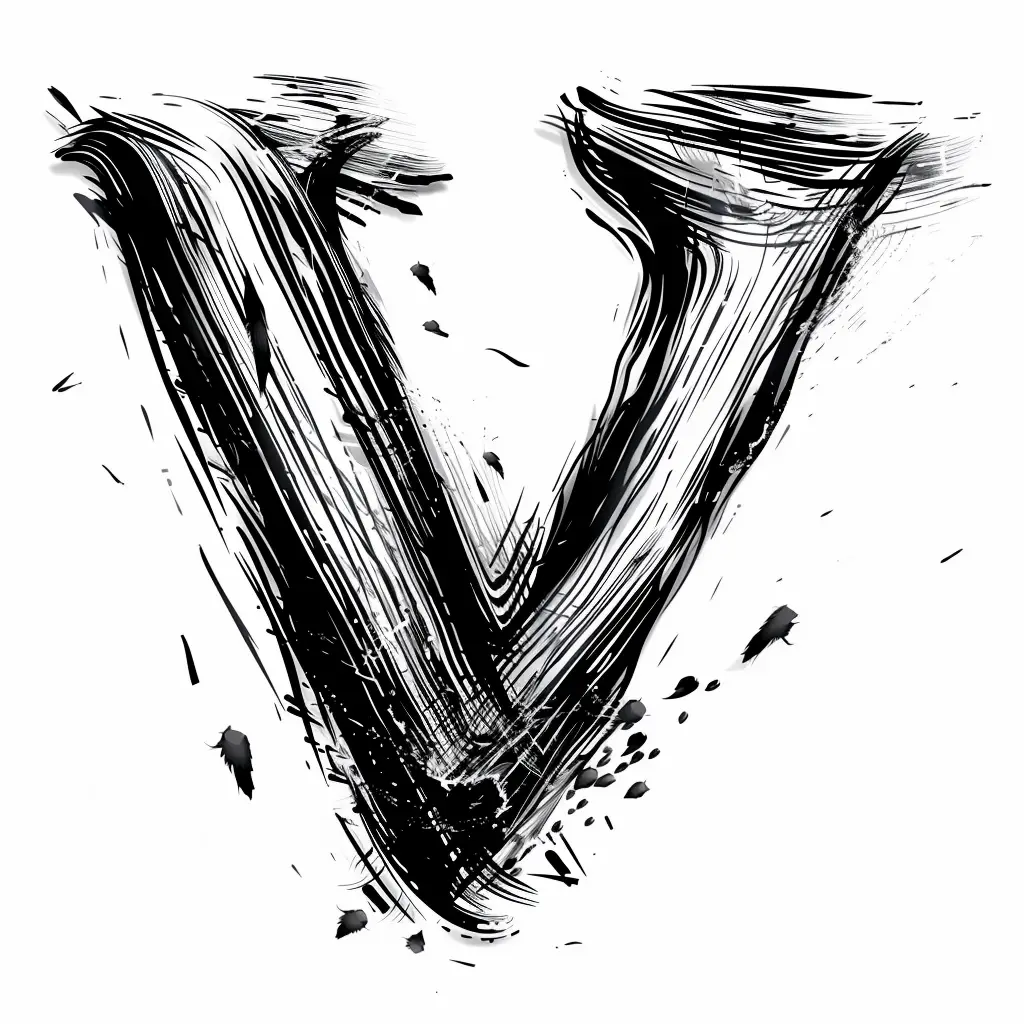
The image features a stylized, artistic representation of the letter "V" rendered in bold black brushstrokes against a white background. The design incorporates dynamic, flowing lines and splattered ink elements, creating a textured, expressive effect. The monochromatic color scheme emphasizes the contrast between the dark, textured strokes and the clean, light backdrop, highlighting the letter’s dramatic, hand-drawn aesthetic.